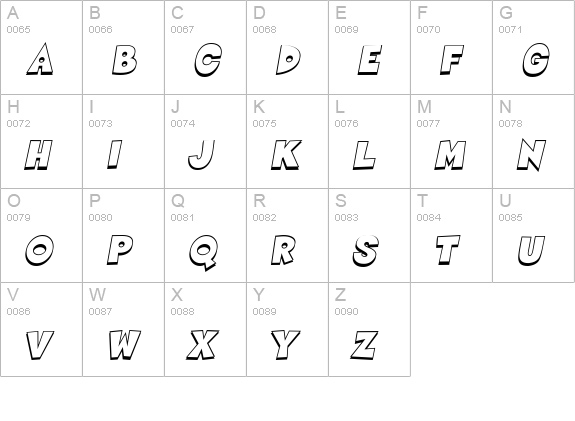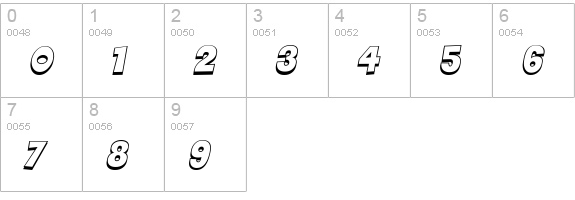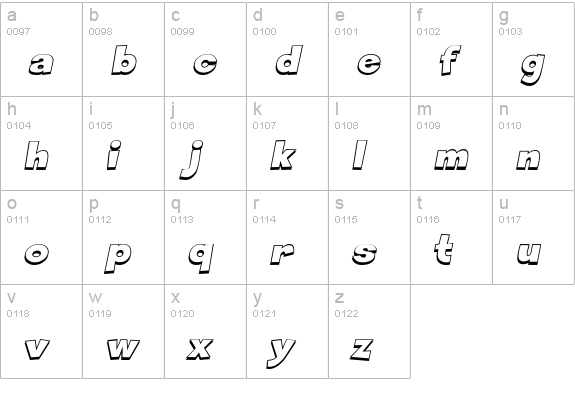
Sneakerhead BTN Shadow Oblique Font Details
Sneakerhead BTN Shadow Oblique is a distinctive, italic variant in the Sneakerhead typeface family \xE2\x80\x94 well suited to design and typography projects.
Sneakerhead BTN Shadow Oblique font is the epitome of urban coolness and street style. With its bold, slanted design and shadowed effect, this font captures the essence of the sneakerhead culture, where sneakers are not just shoes, but a way of life. The Sneakerhead BTN Shadow Oblique font is perfect for creating eye-catching headlines, logos, and designs that demand attention. Its unique letterforms are inspired by the bold and dynamic aesthetics found in the world of sneakers. Each letter is meticulously crafted to reflect the attitude and energy of the sneakerhead community. This font is not just about style and flair, but also about accessibility and freedom. The Sneakerhead BTN Shadow Oblique font is freely available to download at FontsMarket.com, allowing anyone and everyone to unleash their creativity and express themselves without any limitations. Whether you're a designer, a streetwear enthusiast, or simply someone who appreciates the artistry of sneakers, the Sneakerhead BTN Shadow Oblique font will empower you to create stunning visuals that stand out from the crowd. So go ahead, download this font today and let your imagination run wild.